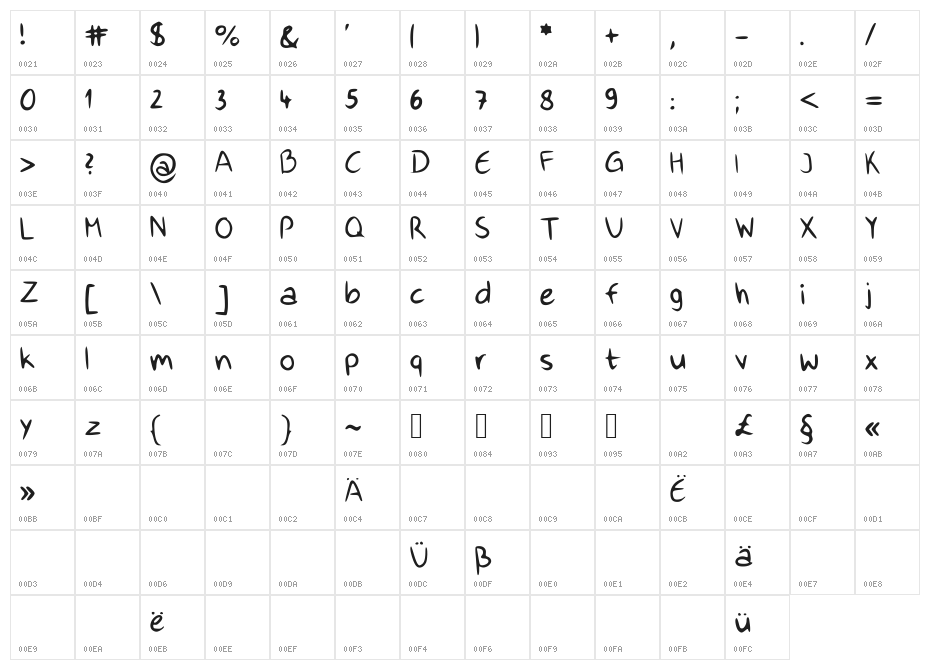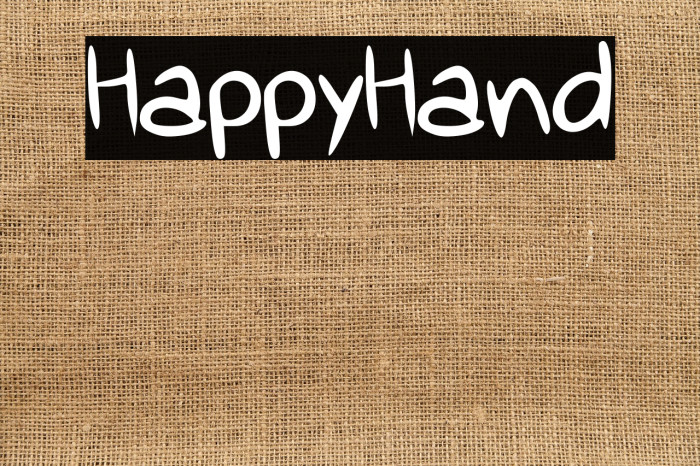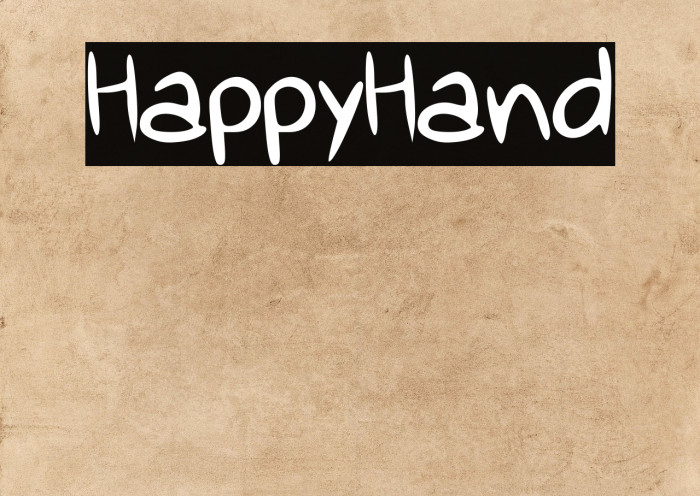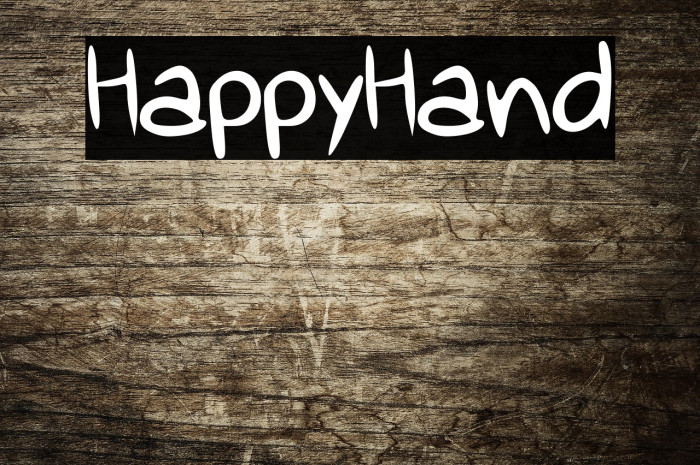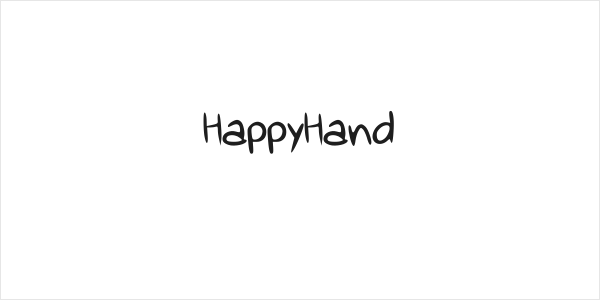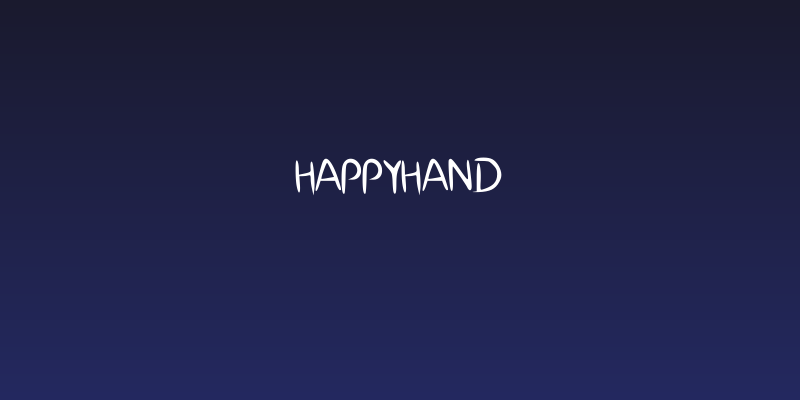
HappyHand Font
HappyHand Description
This playful and energetic font exudes a handwritten charm, characterized by its irregular strokes and casual style. The letters have a lively, bouncy appearance, with varying stroke widths that add a dynamic feel. The uppercase and lowercase letters maintain a consistent flow, while the numerals and special characters complement the overall aesthetic. Its informal and friendly look makes it suitable for projects that require a personal touch.
| Overall Style | Casual, Playful |
| Use Case | Headlines, Informal text, Branding |
| Proposed Projects | Ideal for greeting cards, children's books, playful branding, and casual invitations. |